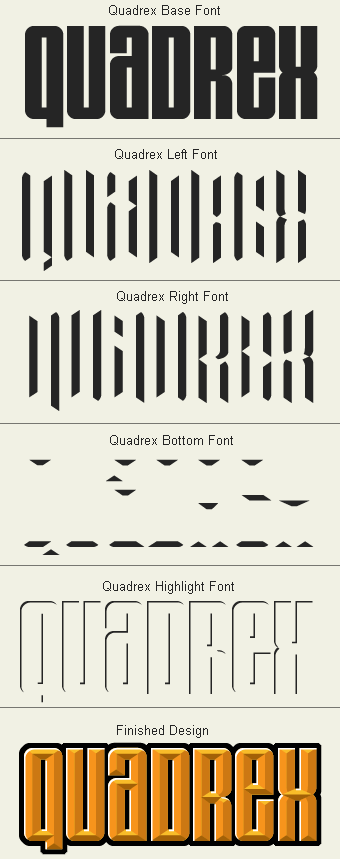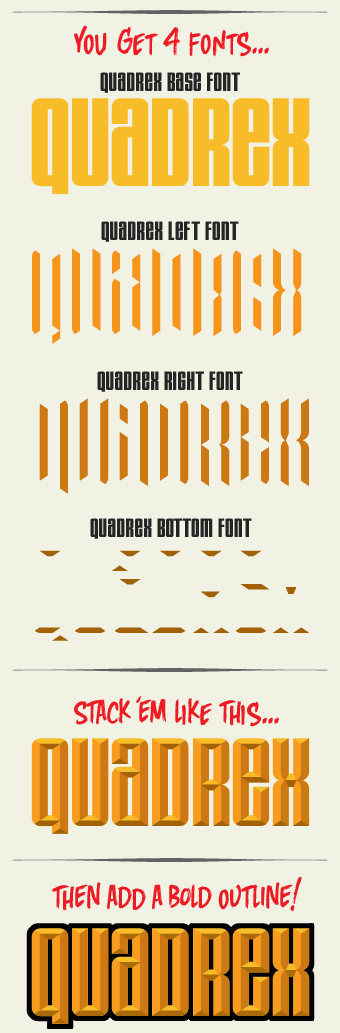
LHF Quadrex
Groundbreaking prismatic style comprised of 4 separate sides, Quadrex allows for more realistic vector-based 3 dimensional effects than ever before. Print it. Scale it. Cut it out of vinyl! Watch the tutorial
By itself, the Quadrex BASE font is handsome enough, but add the other layers-- and you've got a surefire head turner. Quadrex includes 4 individual fonts specially designed to be stacked: Quadrex BASE, Quadrex LEFT, Quadrex RIGHT, and Quadrex BOTTOM.
While Quadrex is simple to use, a basic knowledge of light & shadow and some design experience is necessary to get the most from it. Therefore it may not be suitable for novice designers or those using word processing programs. Professional designers however, will get a kick out of toying around with Quadrex and the many creative possibilities it has to offer.